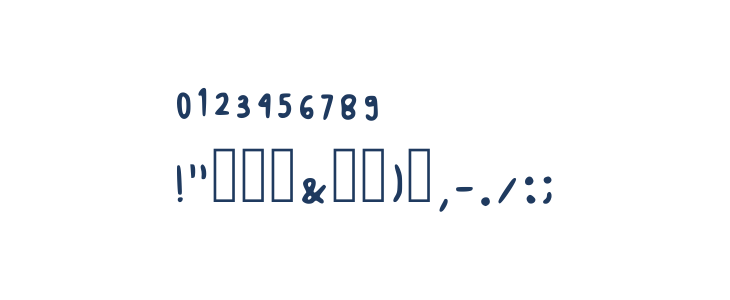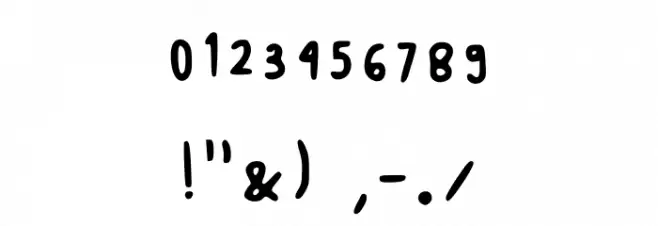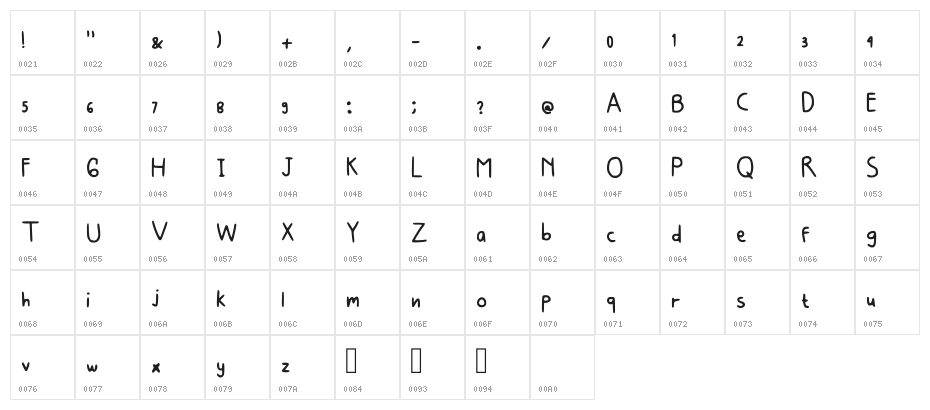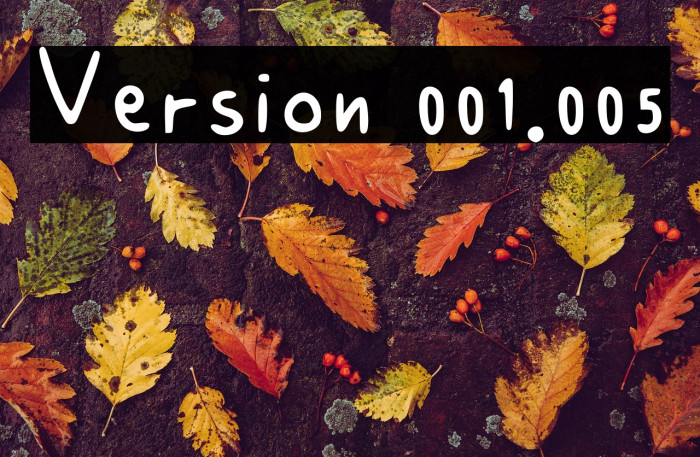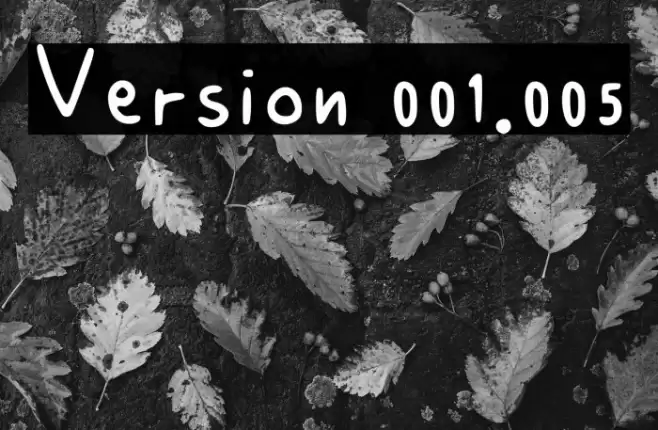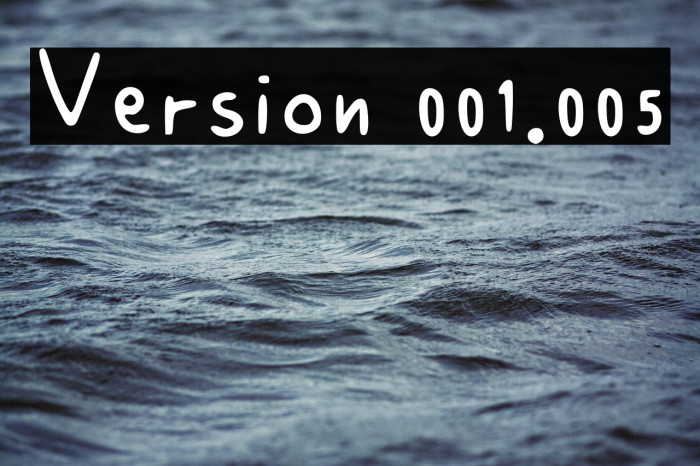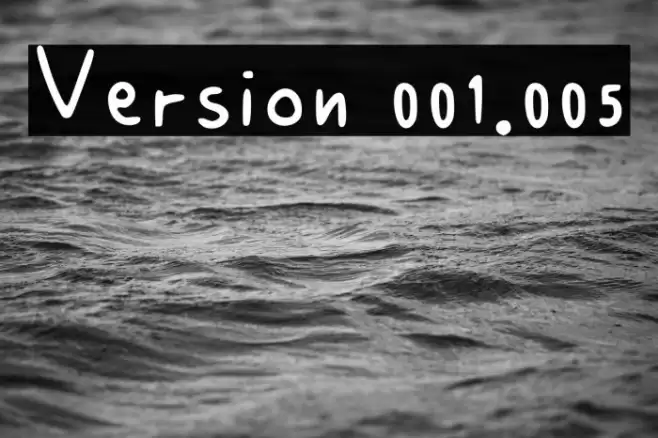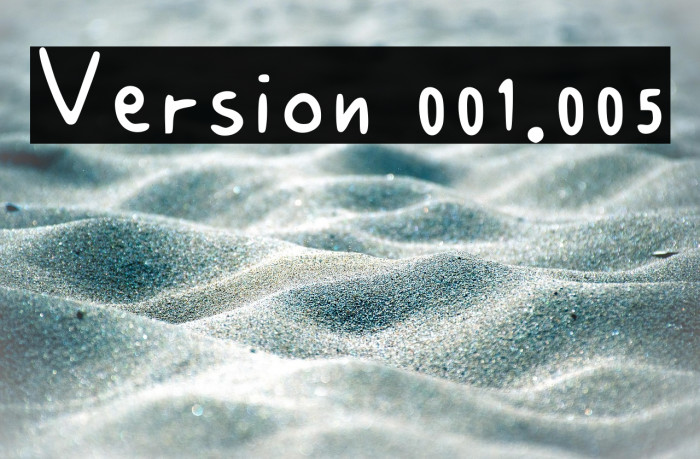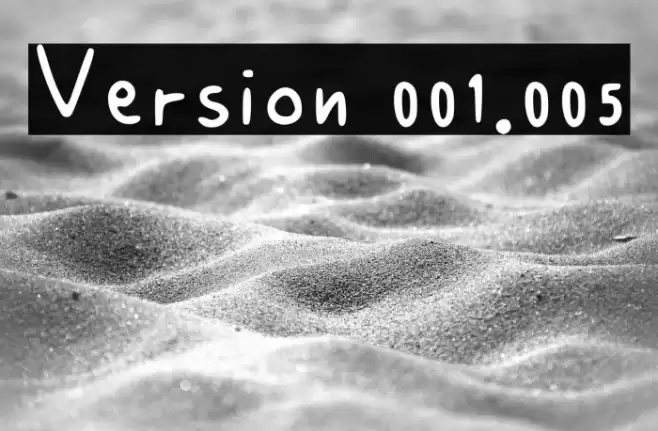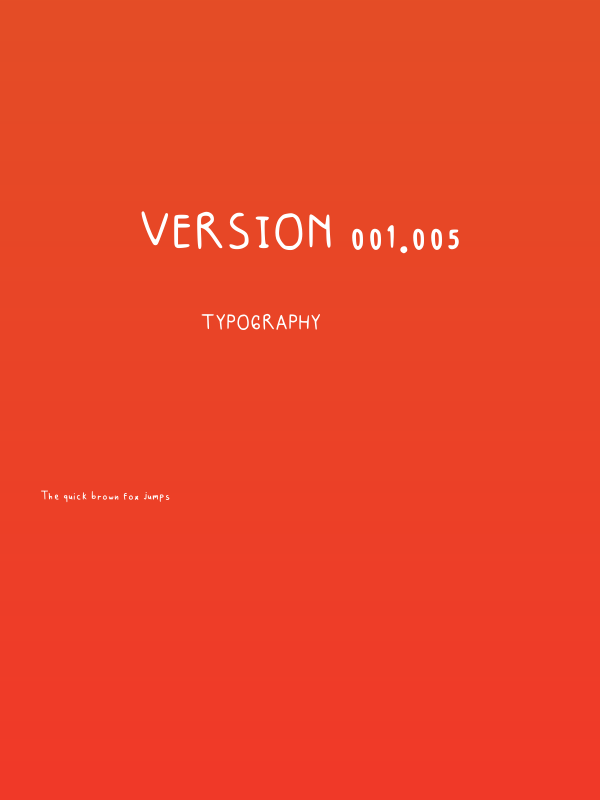
Version 001.005 Font
This font features a playful and informal handwritten style, characterized by its rounded and slightly irregular letterforms. The uppercase and lowercase letters maintain a consistent flow, with a casual and friendly appearance. The numerals and special characters are designed to match the overall aesthetic, providing a cohesive look. The strokes are uniform in thickness, contributing to a balanced and approachable feel. This font is versatile, suitable for projects that require a personal touch or a relaxed vibe.
Overall StyleCasual
Use CaseHeadlines, Informal text, Creative projects
Proposed ProjectsIdeal for children's books, greeting cards, casual branding, and social media graphics.